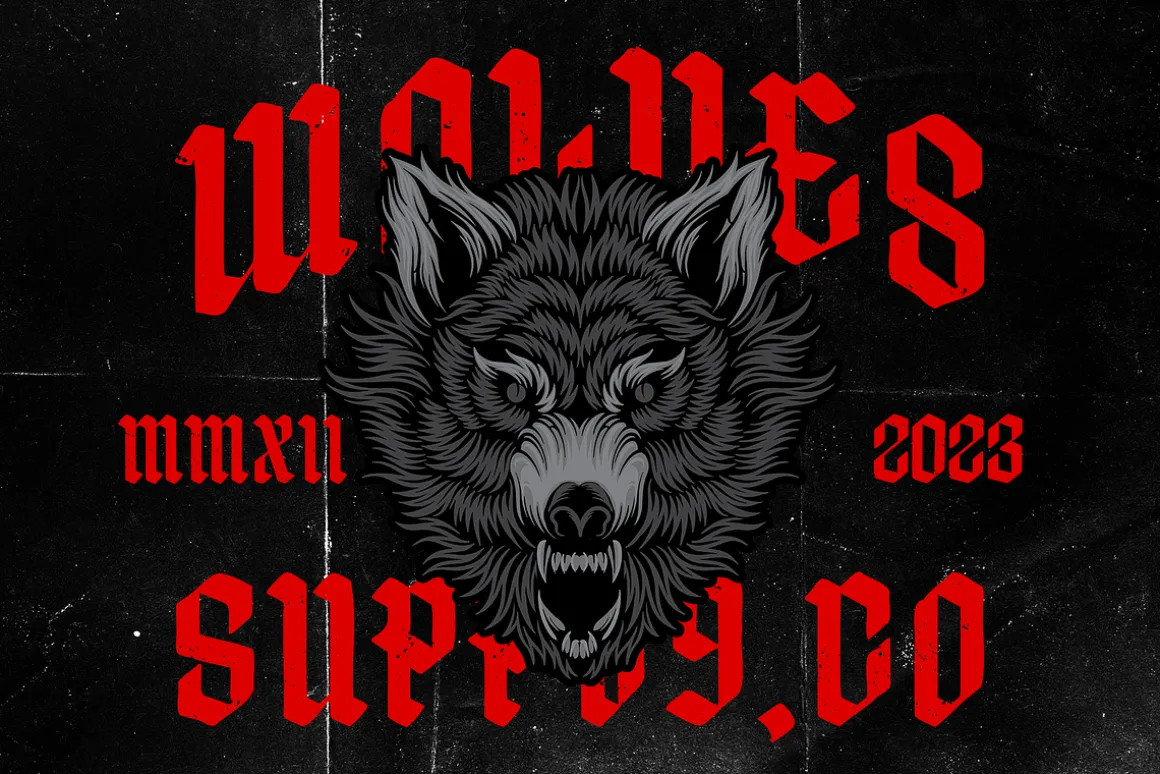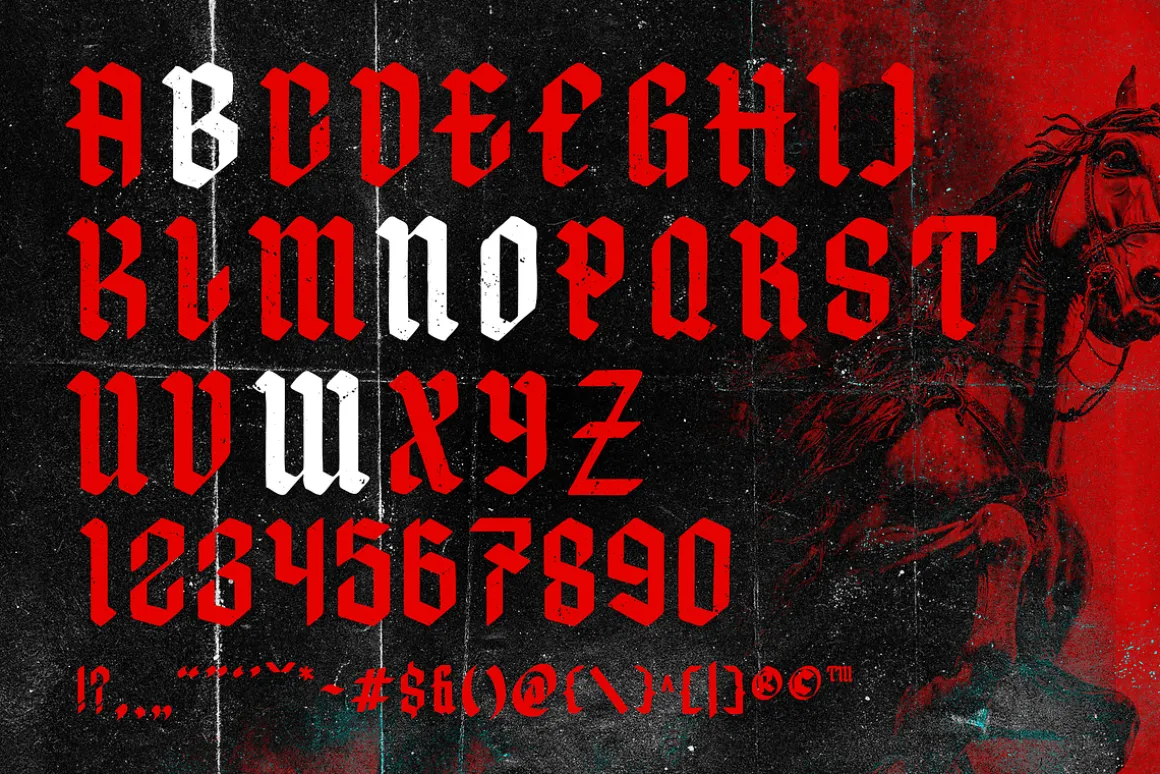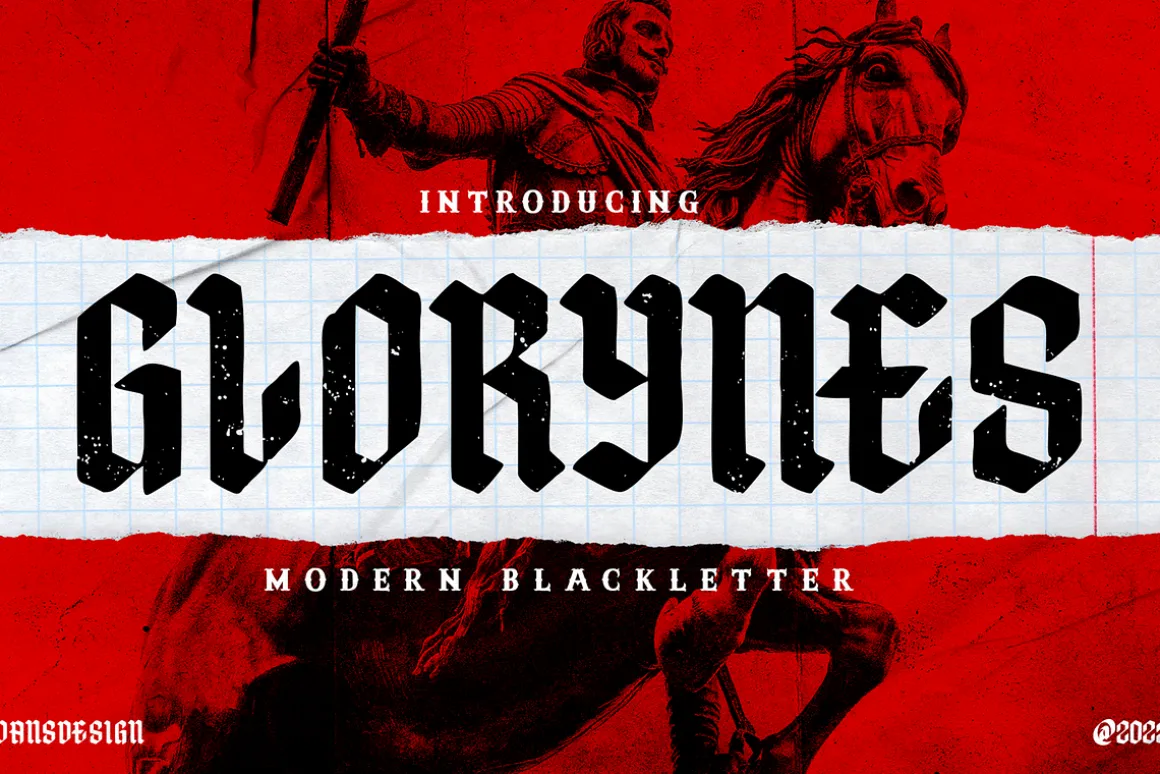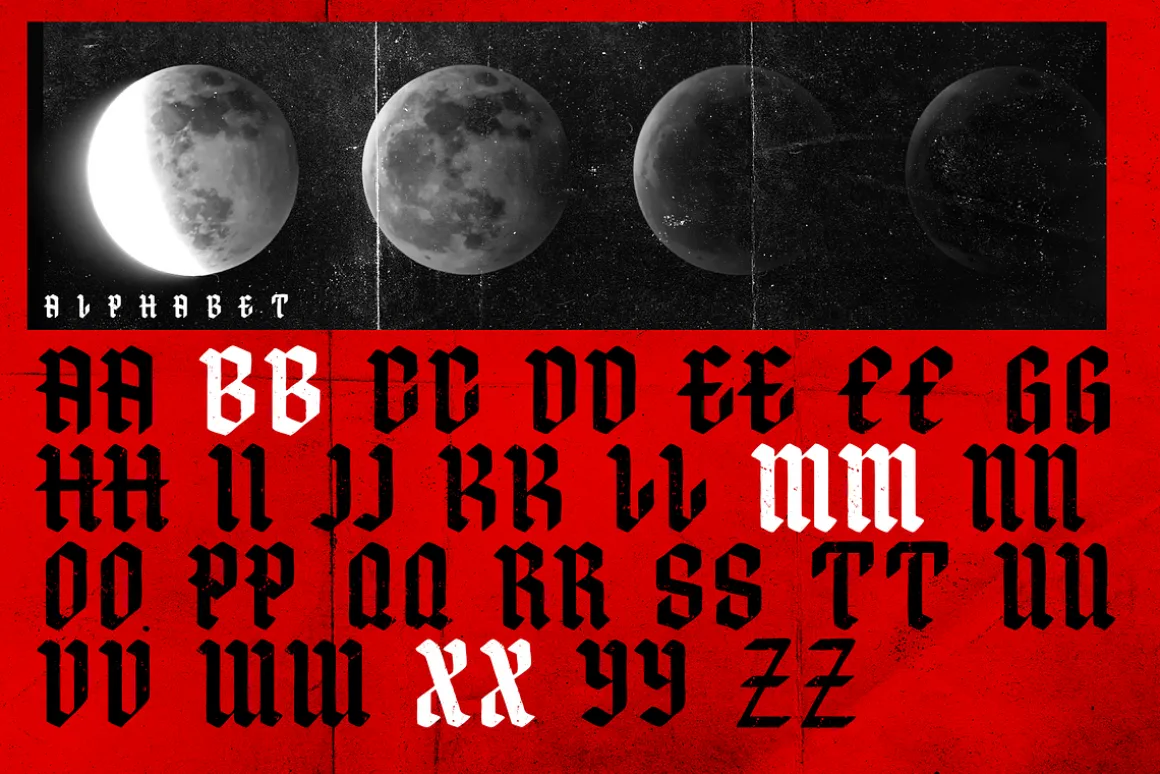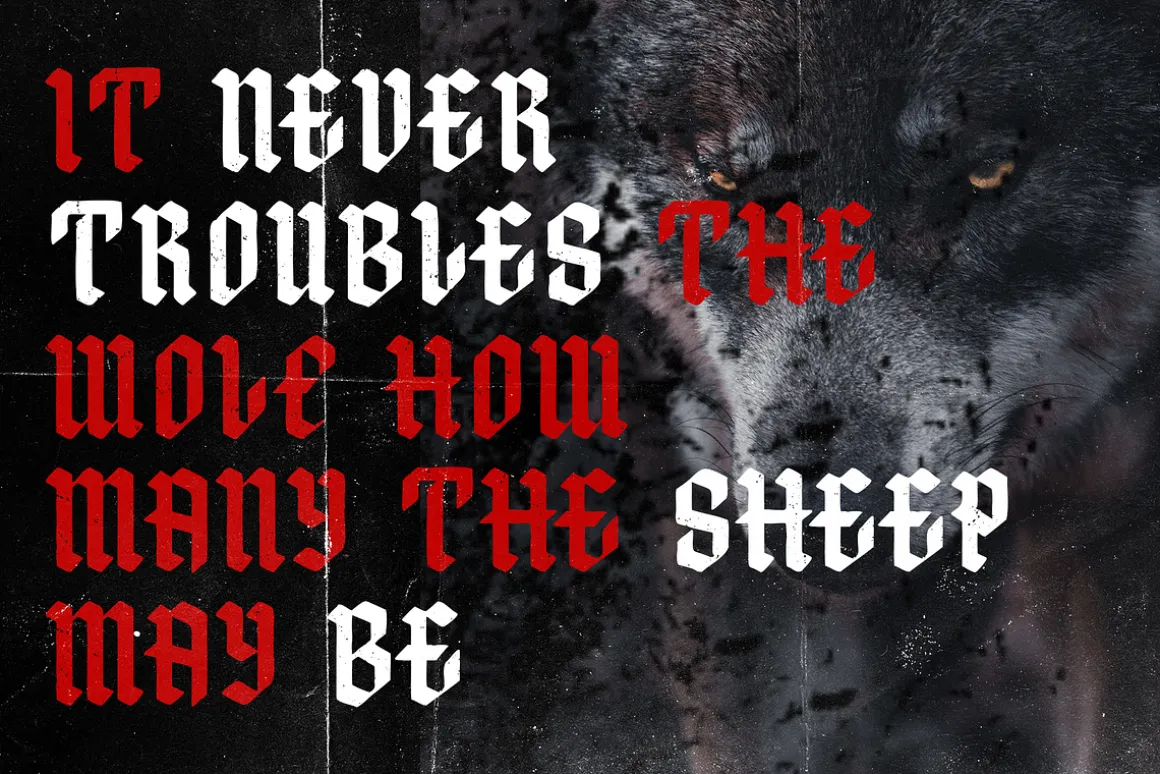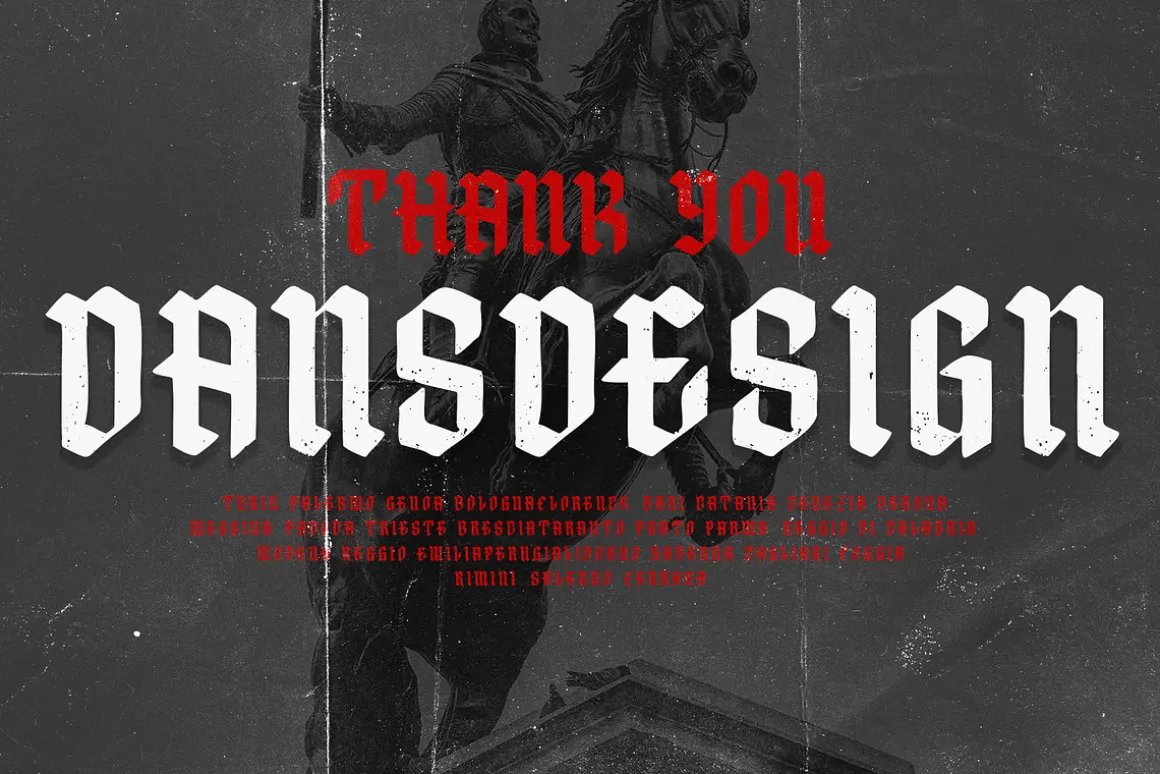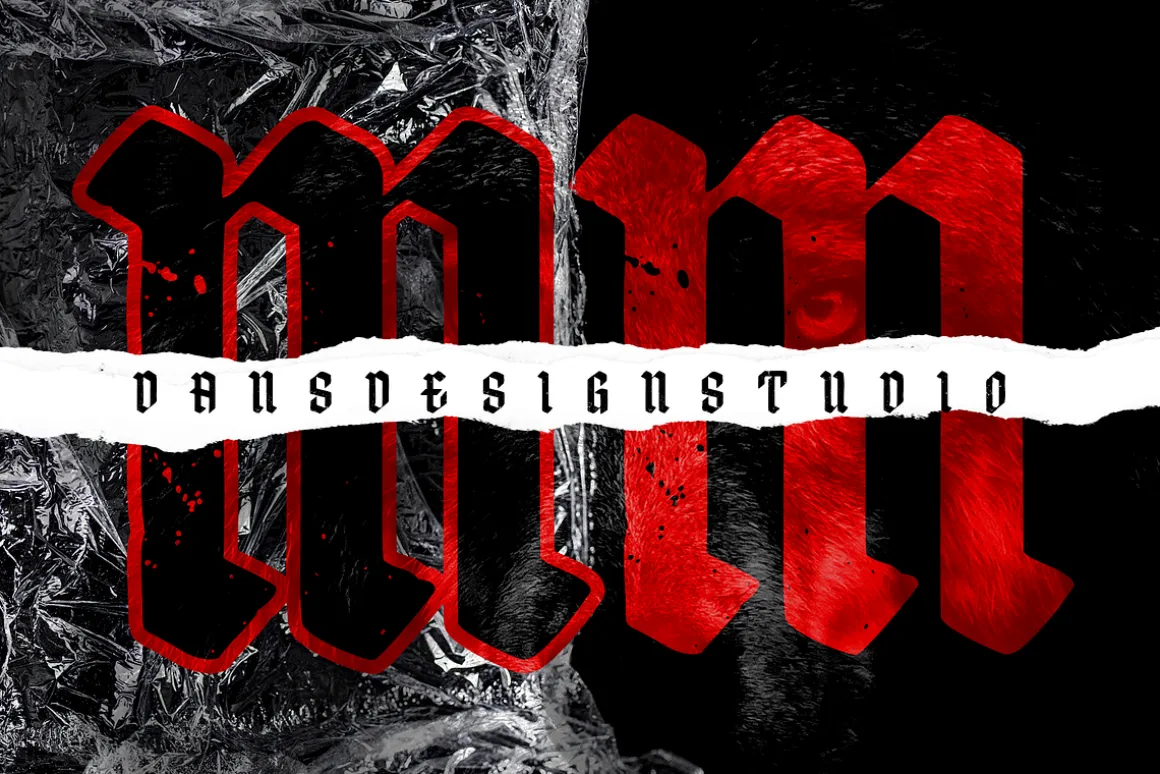
GLORYNES – Modern Blackletters Font is a bold and dramatic modern blackletter typeface designed to bring a strong, gothic, and edgy character to your creative projects. Inspired by traditional blackletter forms but reimagined with a modern twist, this font features sharp strokes, ornamental details, and powerful letterforms that make it perfect for striking display use.
Ideal for metal band logos, music album covers, tattoo studio branding, streetwear design, horror movie posters, vintage-inspired artwork, and retro urban projects, GLORYNES delivers an authentic dark aesthetic with a contemporary edge.